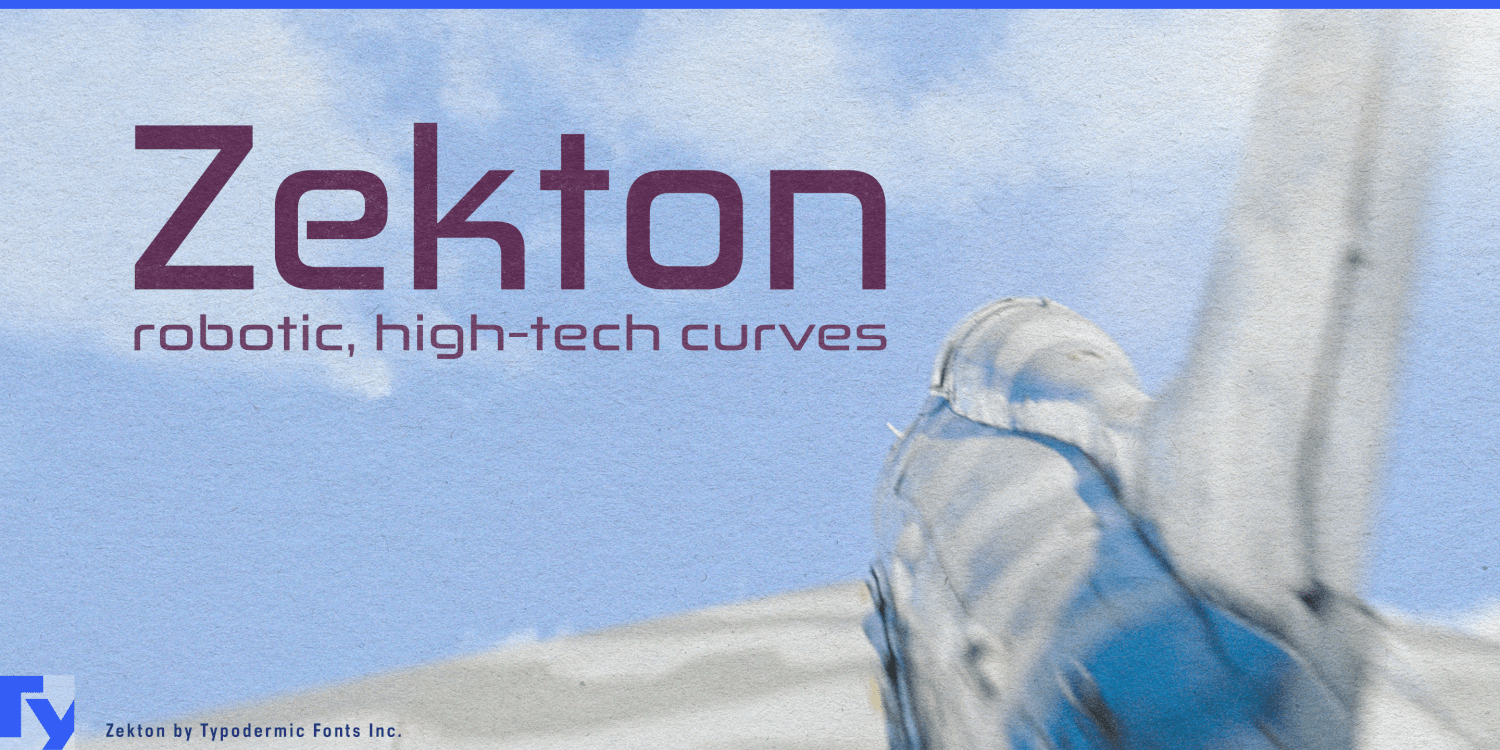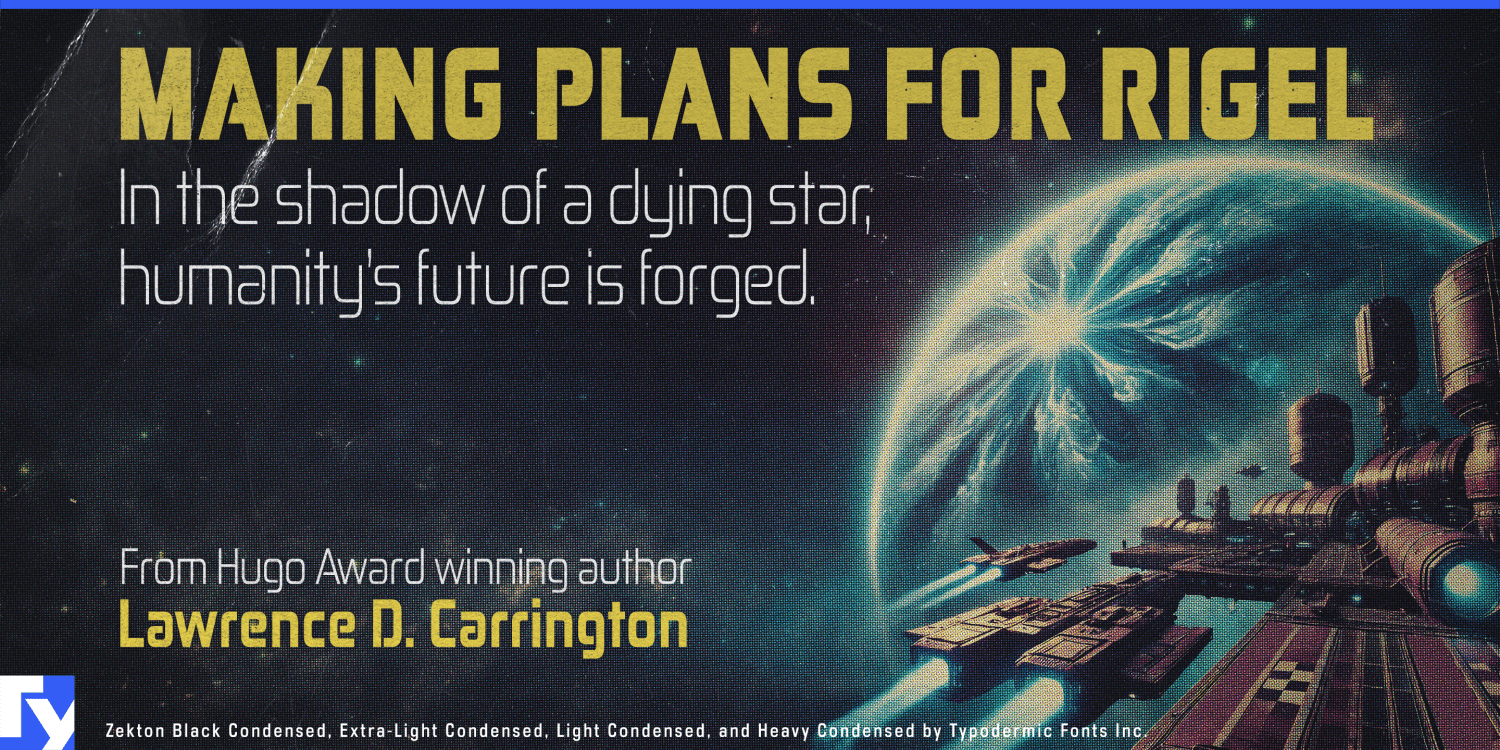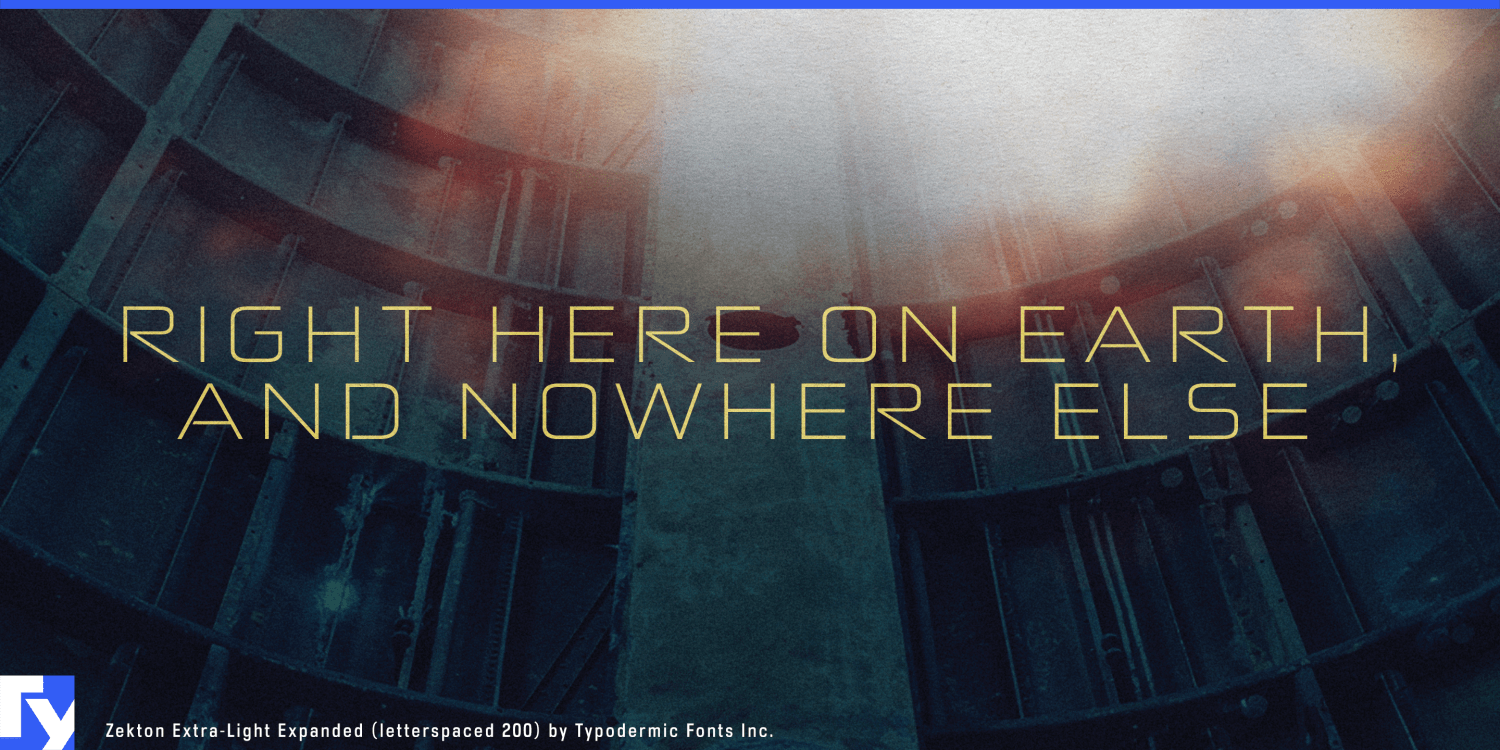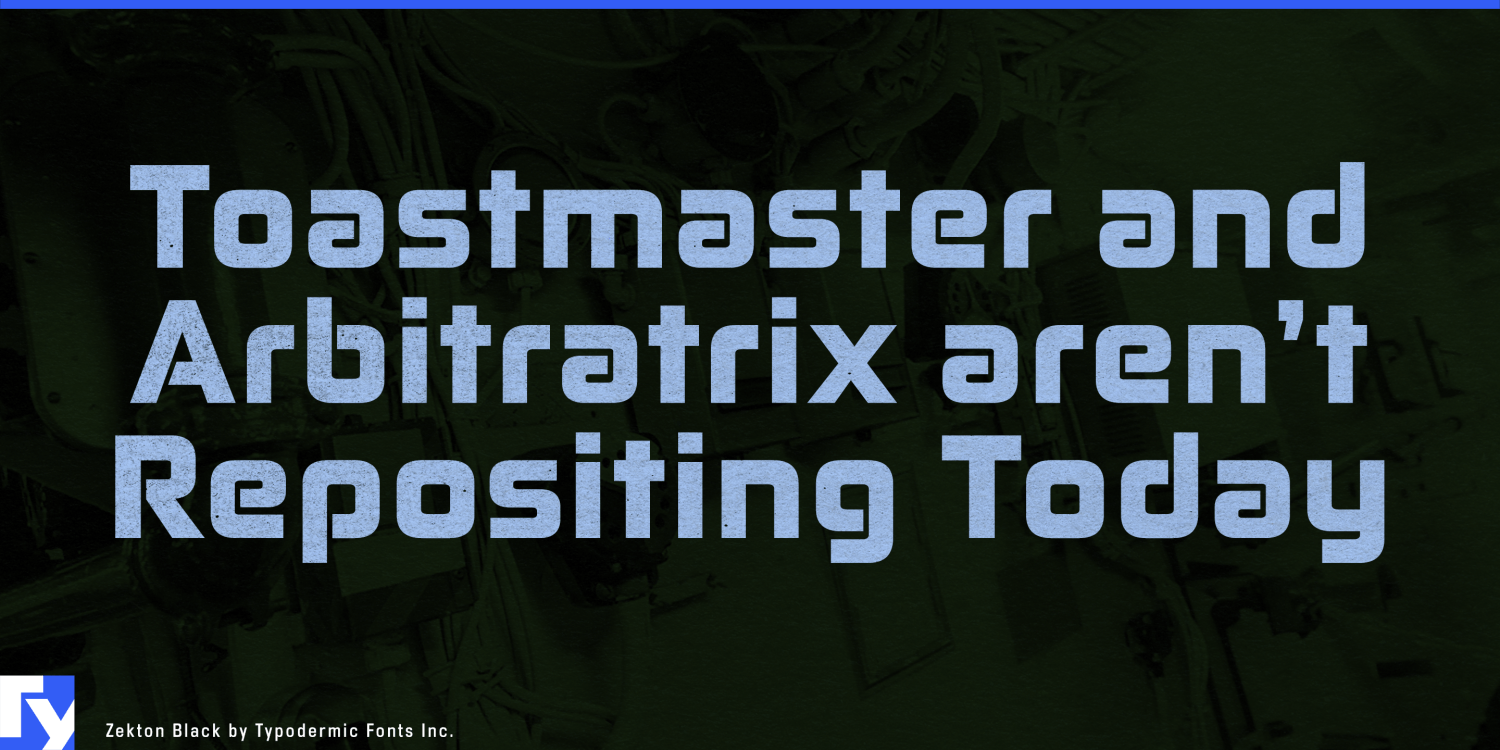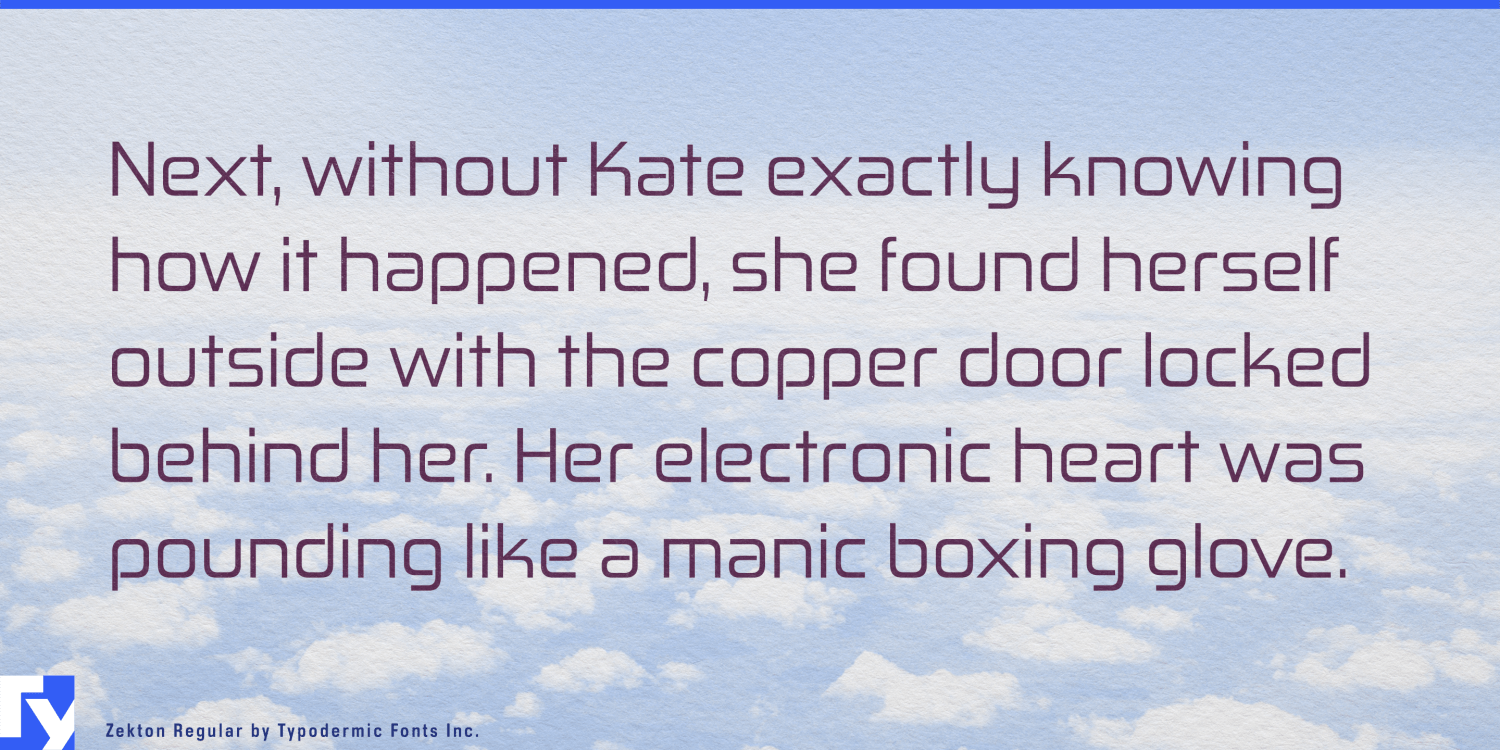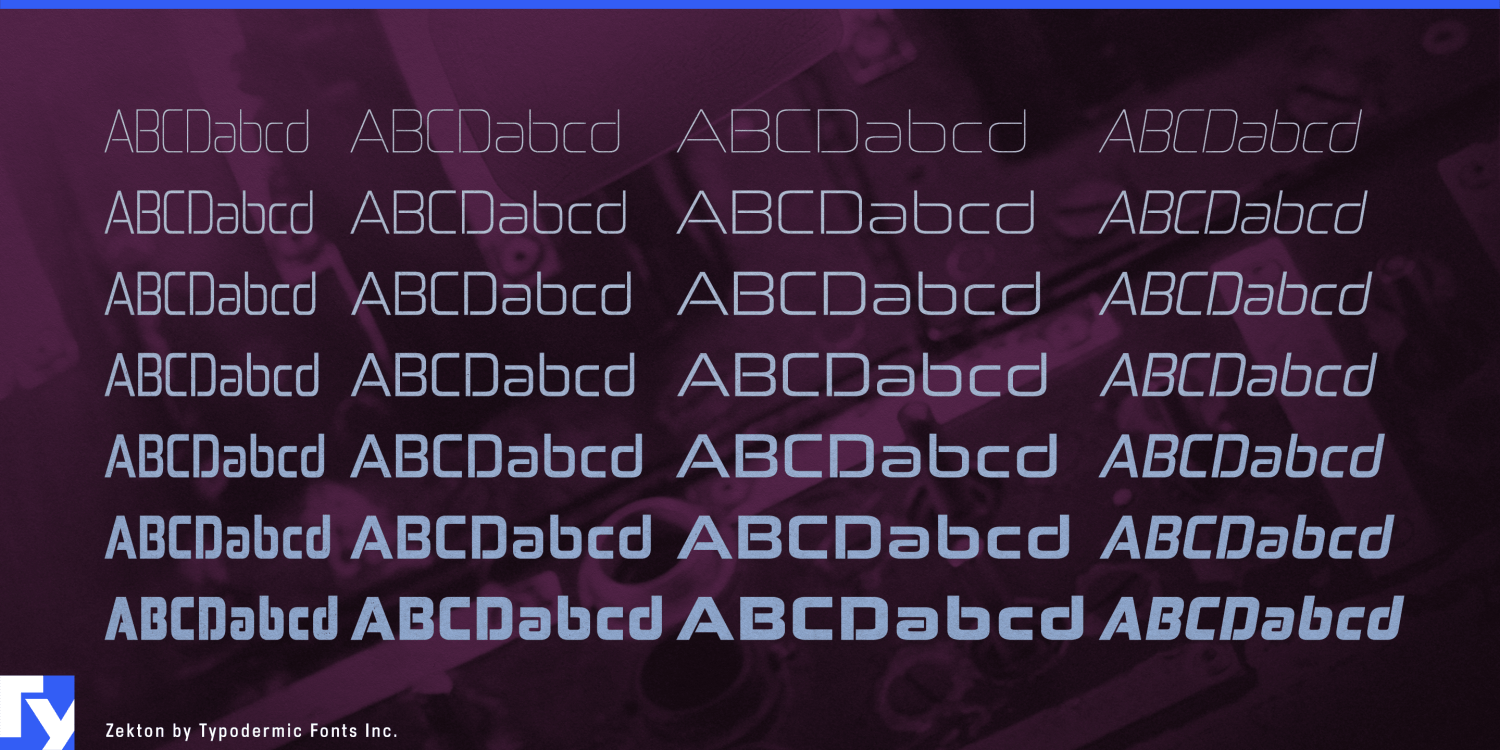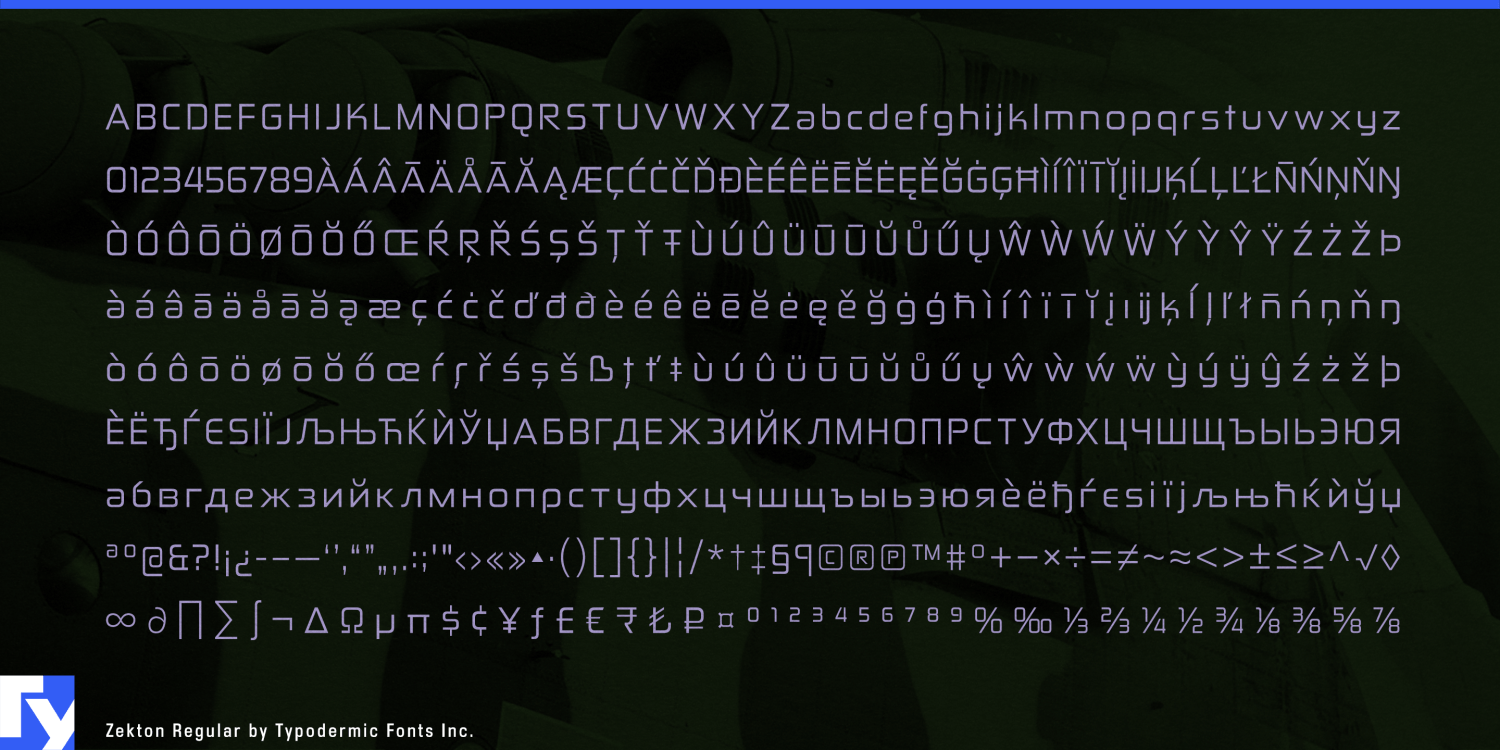
About Zekton
Prepare for typographic liftoff with Zekton, the font that’s boldly going where no letterform has gone before. This isn’t just a typeface—it’s a portal to a chrome-plated future where information flows like liquid crystal and ideas…